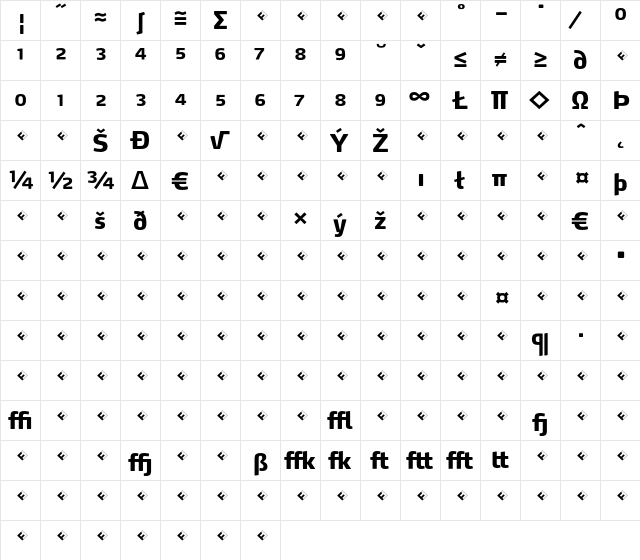
Max-ExtraBoldExpert Regular
Design Context for Max-ExtraBoldExpert Typeface
Max-ExtraBoldExpert offers clean, dependable letterforms without strong stylistic allegiance, making it a practical choice for designers who need flexibility. Its bold stroke weight gives it real presence on the page.